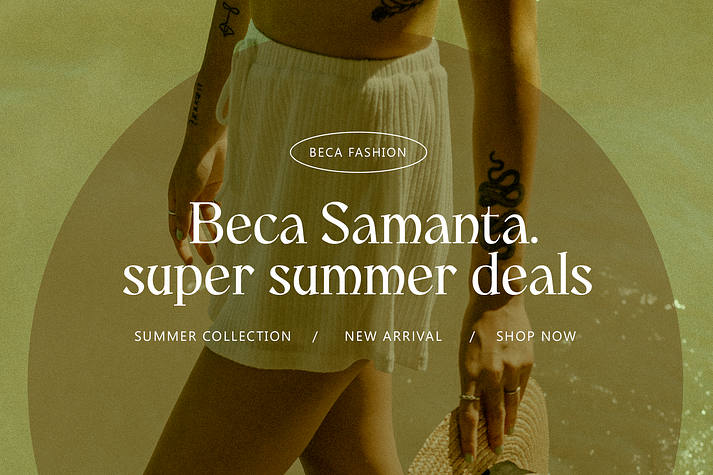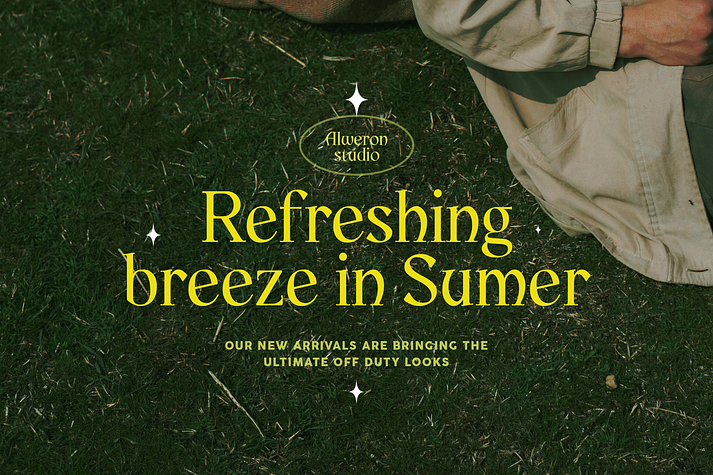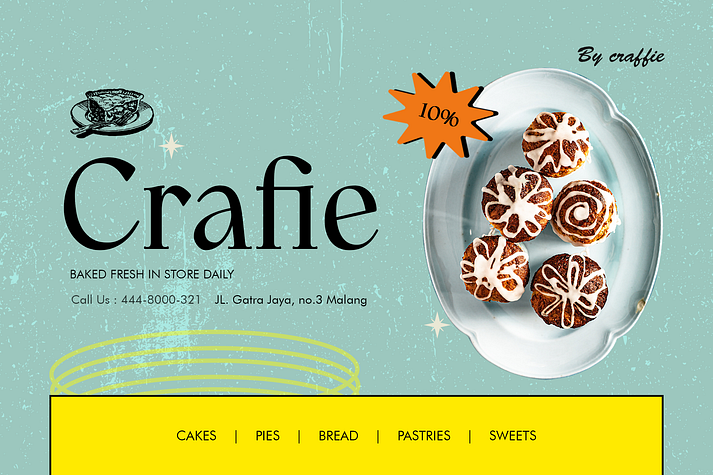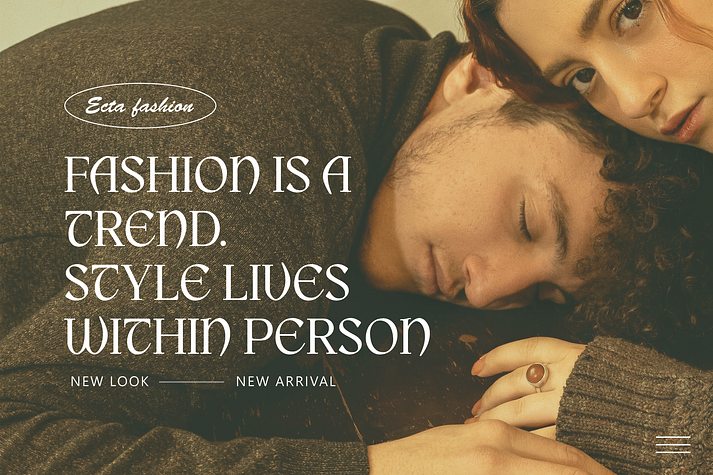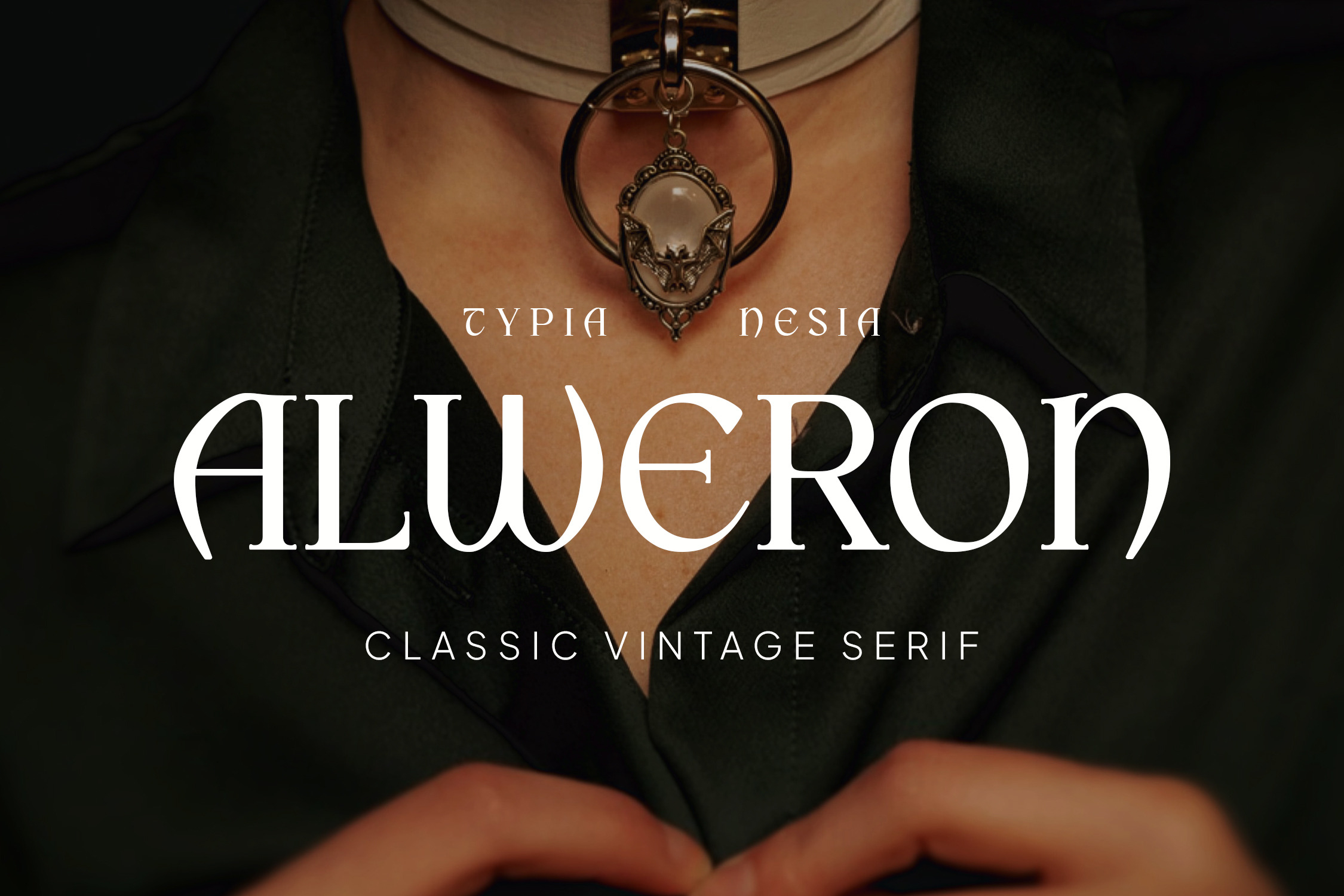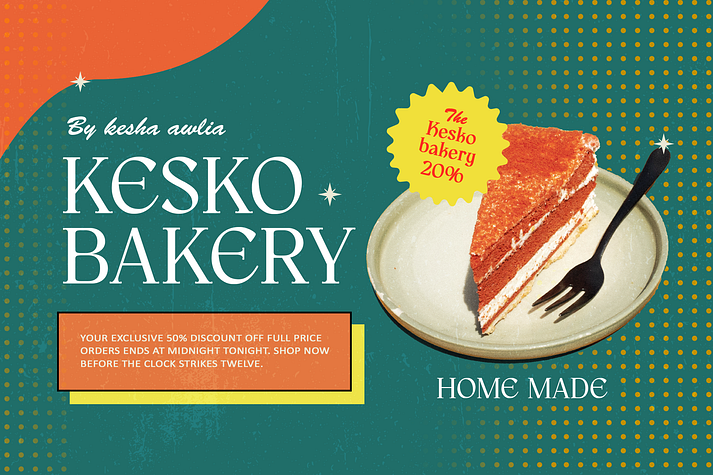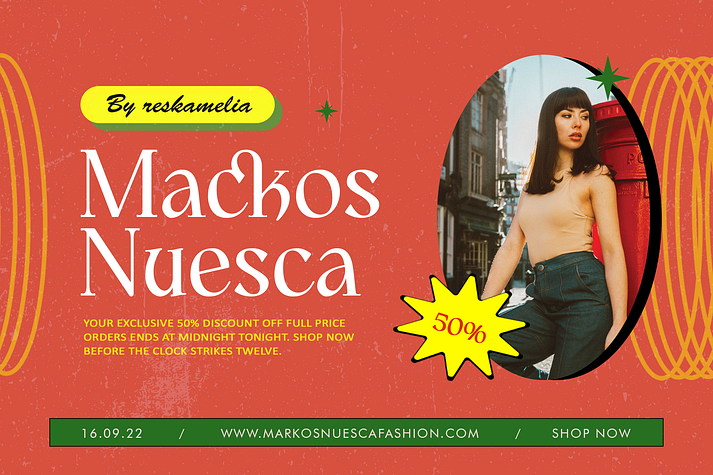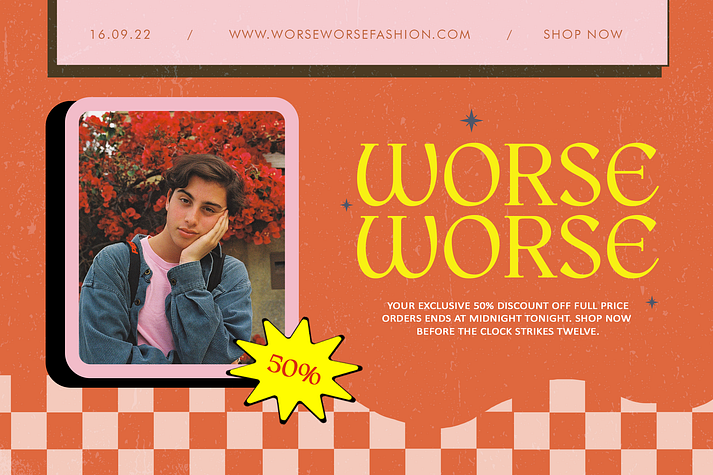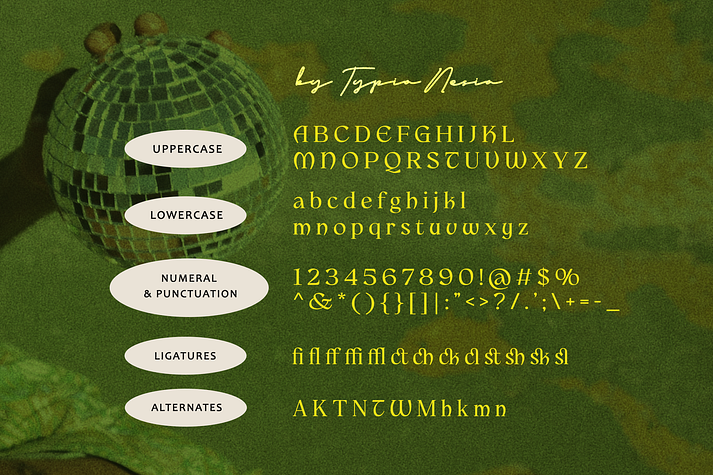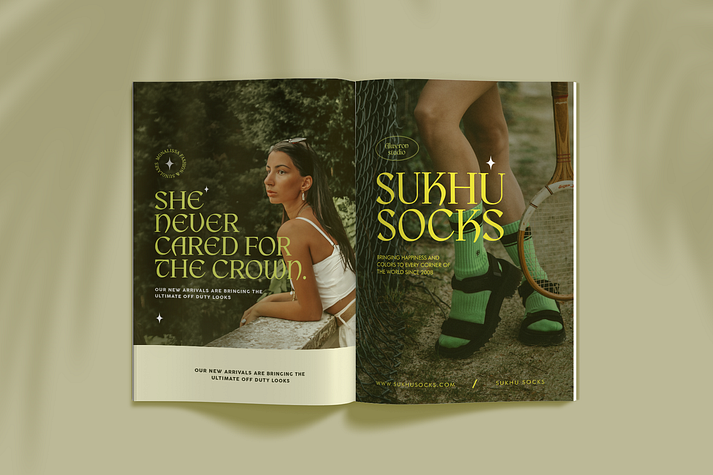
Alweron
Alweron is a font family published by Typia Nesia.
Alweron - Classic Vintage Pop Retro Style Font. Experience the perfect balance of classic and modern with Alweron Font’s Classic retro pop serif.
Alweron Font is a classic serif typeface that boasts a vintage style with a modern twist. Its unique design features ligatures and alternate characters, which add versatility to your designs. Alweron Font is perfect for creating elegant and sophisticated designs for various applications, such as branding, logos, packaging, headlines, and editorial designs. Its classic design and retro pop style make it a perfect choice for designers who are looking to add a touch of vintage elegance to their designs.